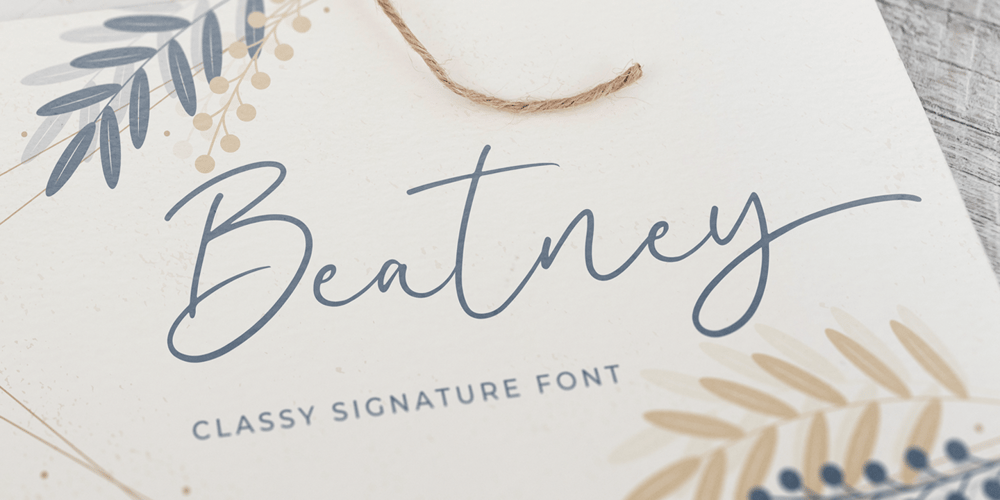
Beatney Font Family was designed by Bangkit Tri Setiadi and published by Blankids. Beatney contains 1 styles and family package options. Introducing of our new product the name is Beatney a Classy Signature Font. Beatney inspired by modern script style this font is a fun theme very good for display, tshirt design, craft, quote sign, logotype and etc